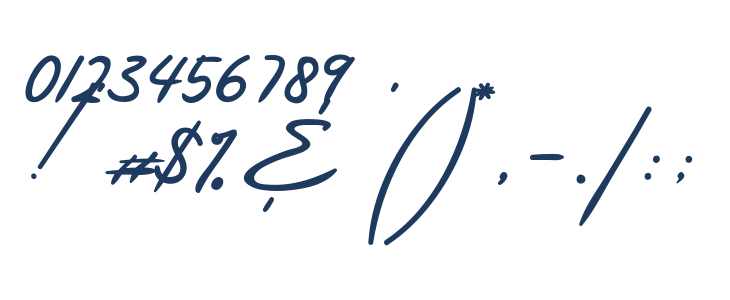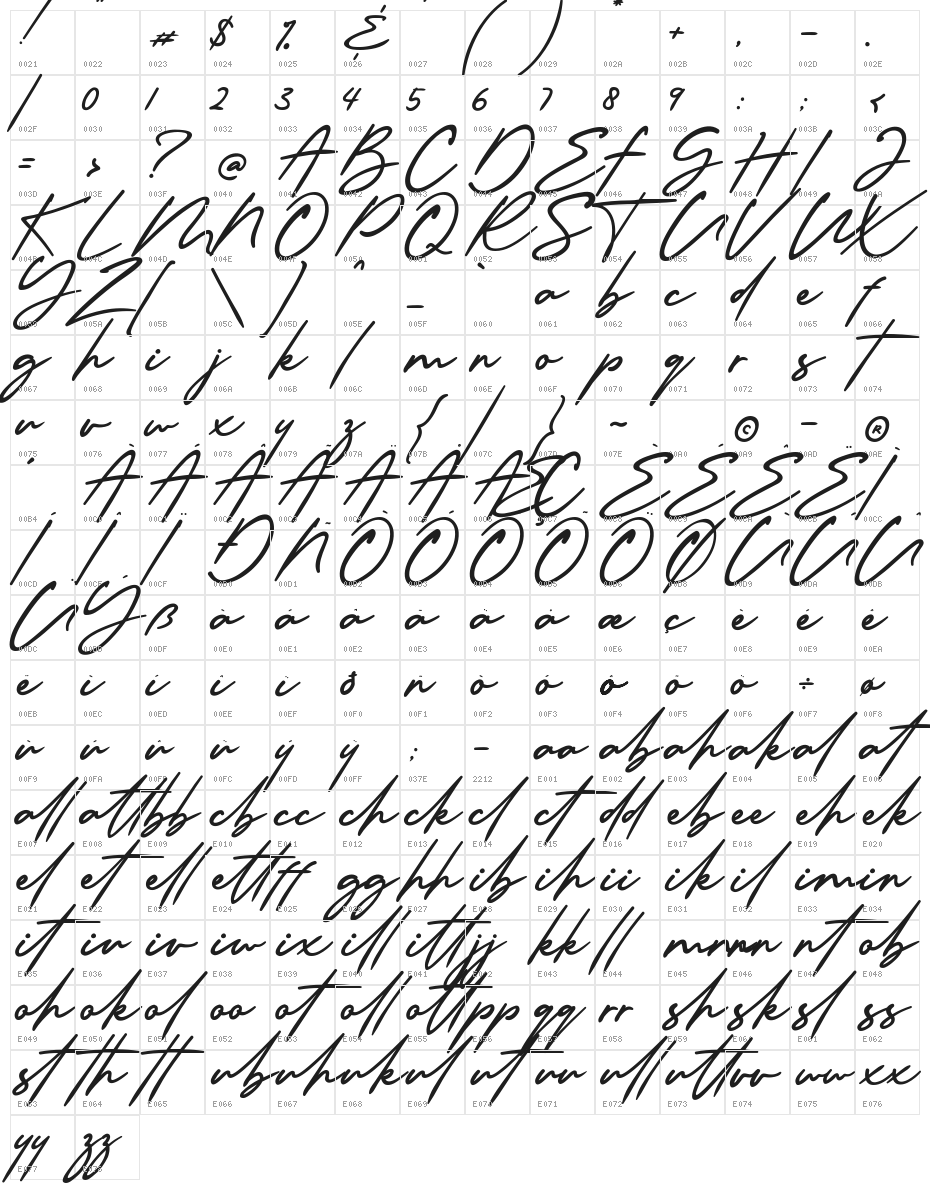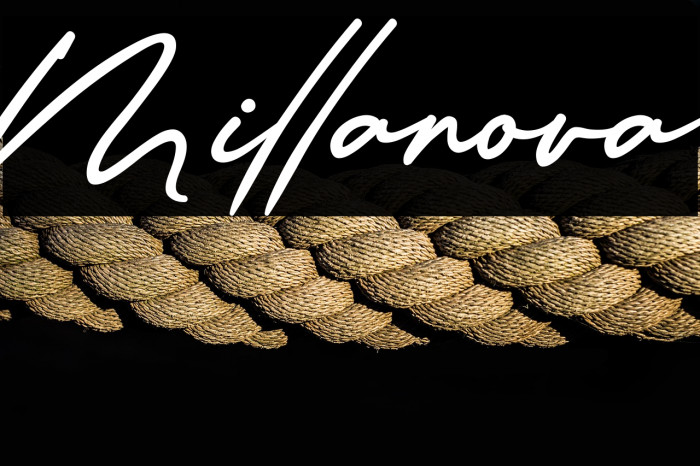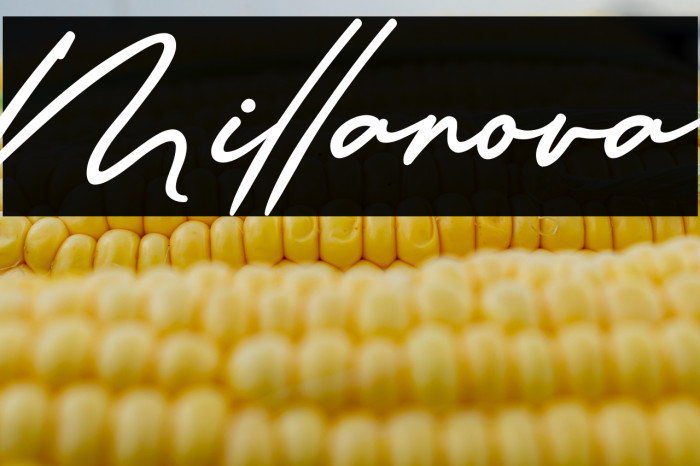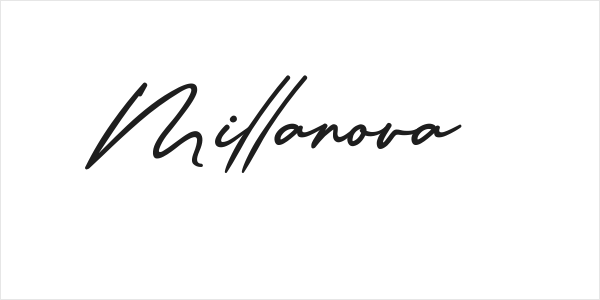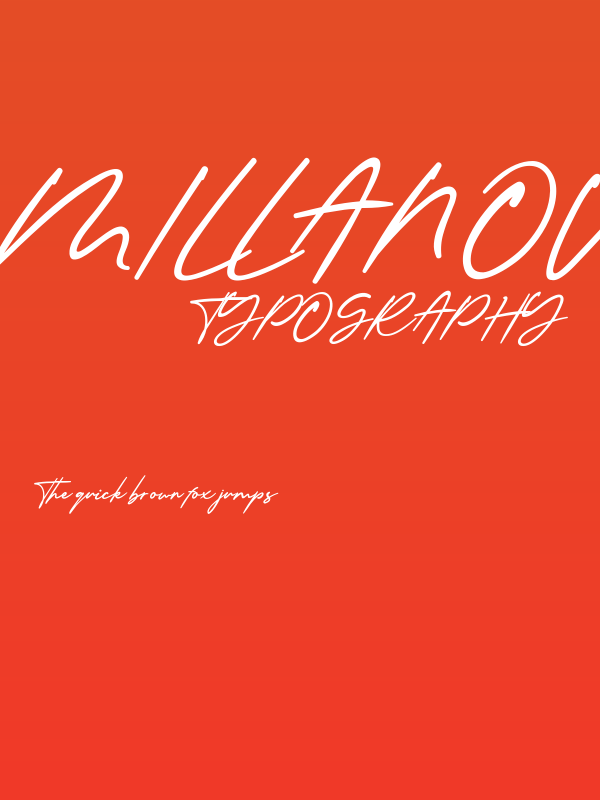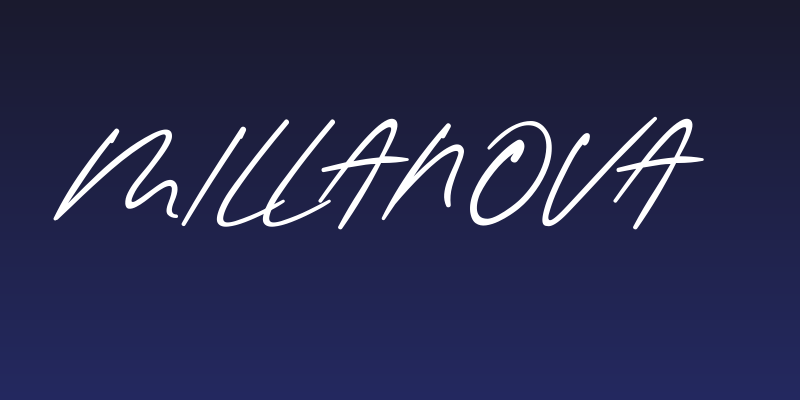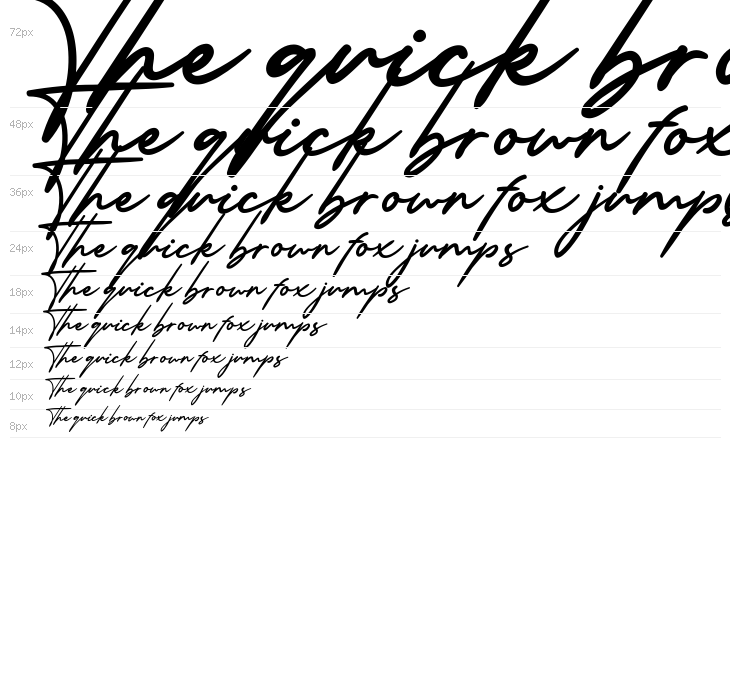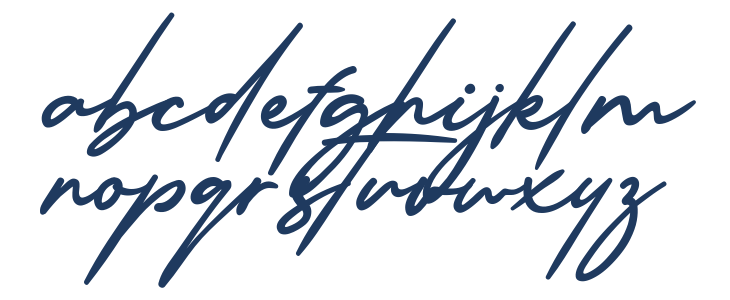
Millanova Font
Millanova Description
This font features a dynamic and fluid script style, characterized by its elegant and flowing cursive letters. The uppercase letters are bold and slightly slanted, giving a sense of movement and grace. The lowercase letters maintain a consistent flow, with smooth connections between each character, enhancing readability while retaining a handwritten charm. The numerals are clear and well-defined, matching the overall aesthetic of the font. Special characters are creatively integrated, maintaining the font's cohesive style. This font exudes a sense of sophistication and personal touch, making it ideal for projects that require a human element.
| Overall Style | Elegant |
| Use Case | Logos, Invitations, Personal Branding |
| Proposed Projects | Ideal for wedding invitations, personal branding, greeting cards, and elegant logos. |